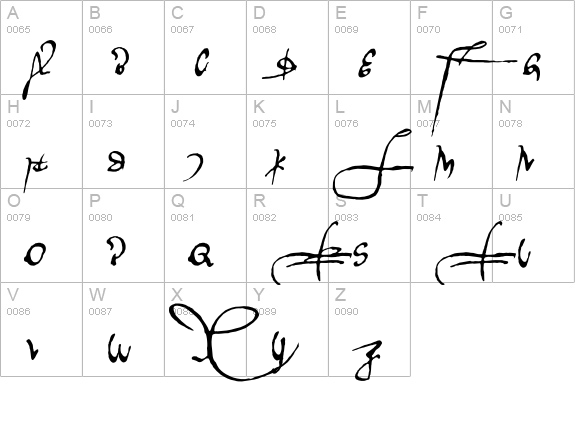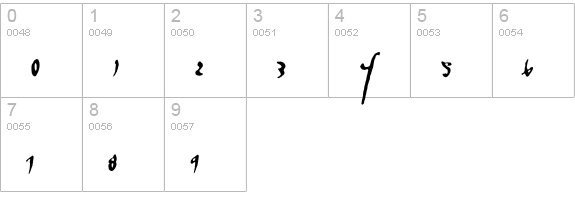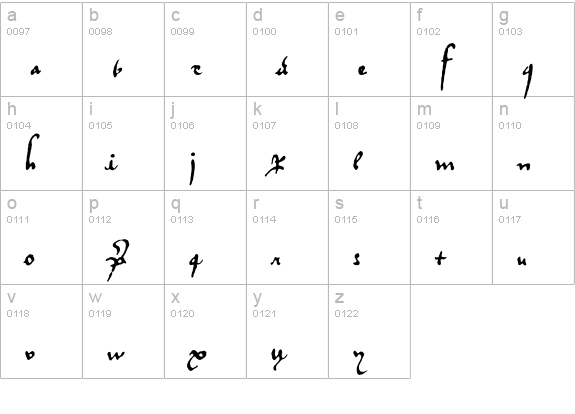
RegalloAPlaya Font Details
RegalloAPlaya font is a stunning and unique typeface that embodies the essence of playful elegance. With its smooth curves and charming letterforms, this font captures attention and adds a touch of whimsy to any design project. This font is not only visually captivating, but it is also versatile and functional. Whether used for headings, logos, or body text, RegalloAPlaya font effortlessly conveys a sense of fun and creativity. One of the best things about RegalloAPlaya font is that it is free! Yes, you read that right. This incredible font is freely available to download at FontsMarket.com. Now you can enjoy the beauty and charm of RegalloAPlaya font without breaking the bank. Designed with utmost care and attention to detail, RegalloAPlaya font offers a wide range of characters, including uppercase and lowercase letters, numerals, punctuation marks, and special symbols. Its extensive character set ensures that you have everything you need to bring your design visions to life. Whether you are working on a branding project, a poster design, or a website layout, RegalloAPlaya font will help you stand out from the crowd. Its unique personality and delightful charm will captivate your audience and leave a lasting impression. So why wait? Download RegalloAPlaya font for free at FontsMarket.com and let your creativity soar. With this font in your design arsenal, the possibilities are endless.